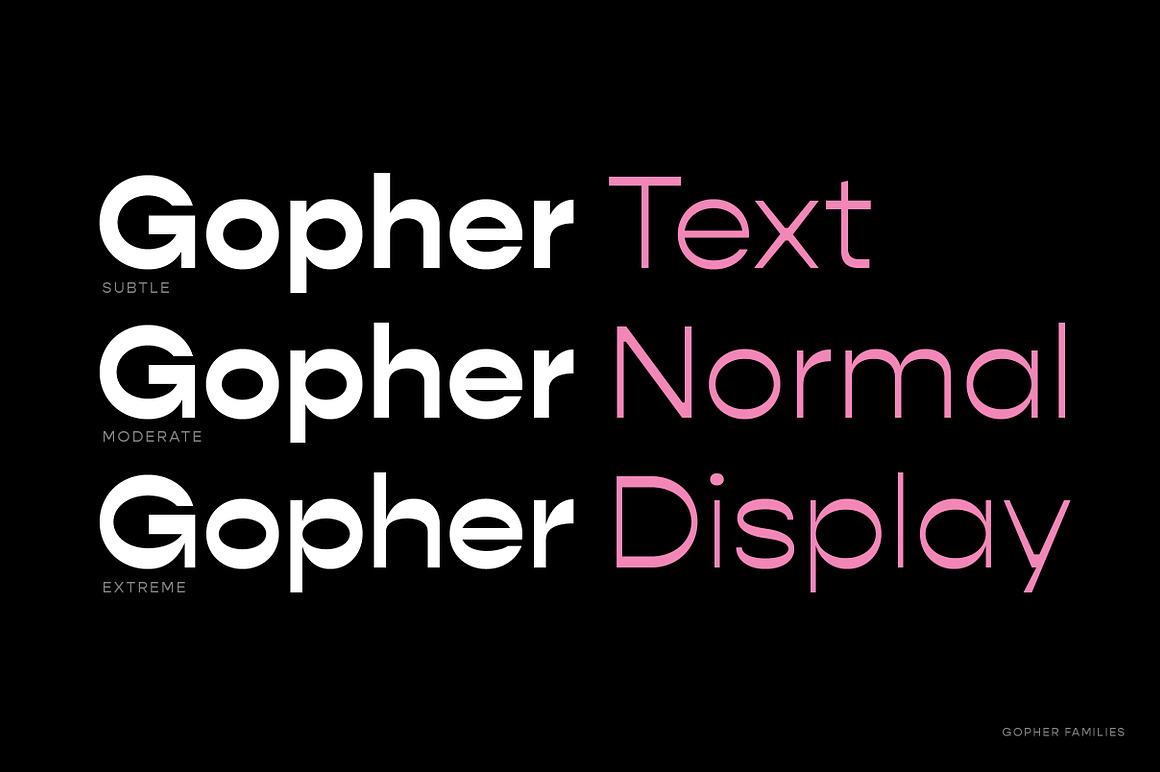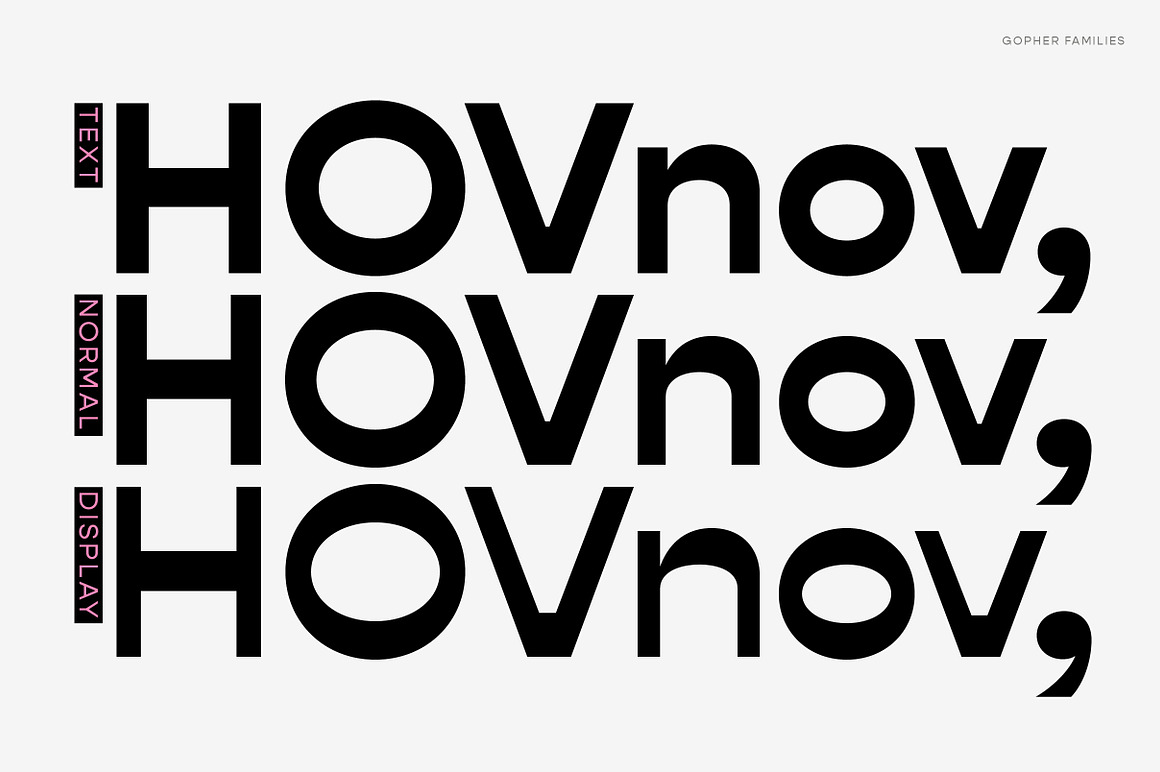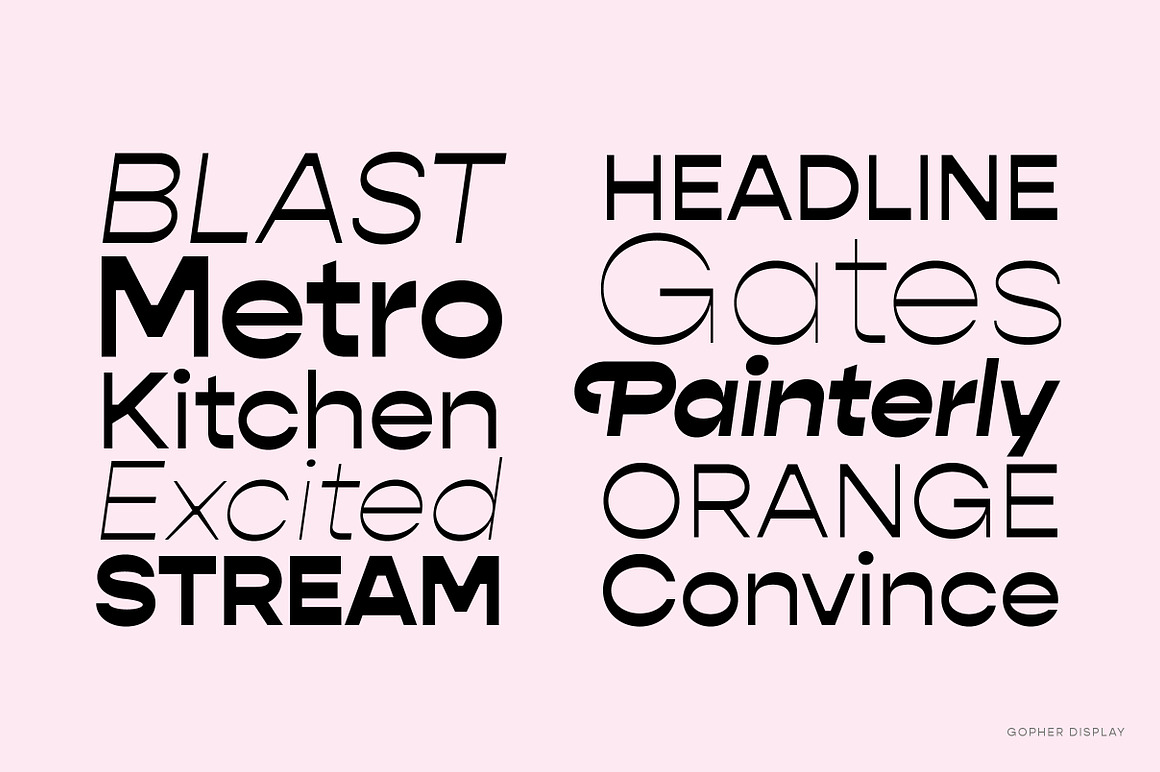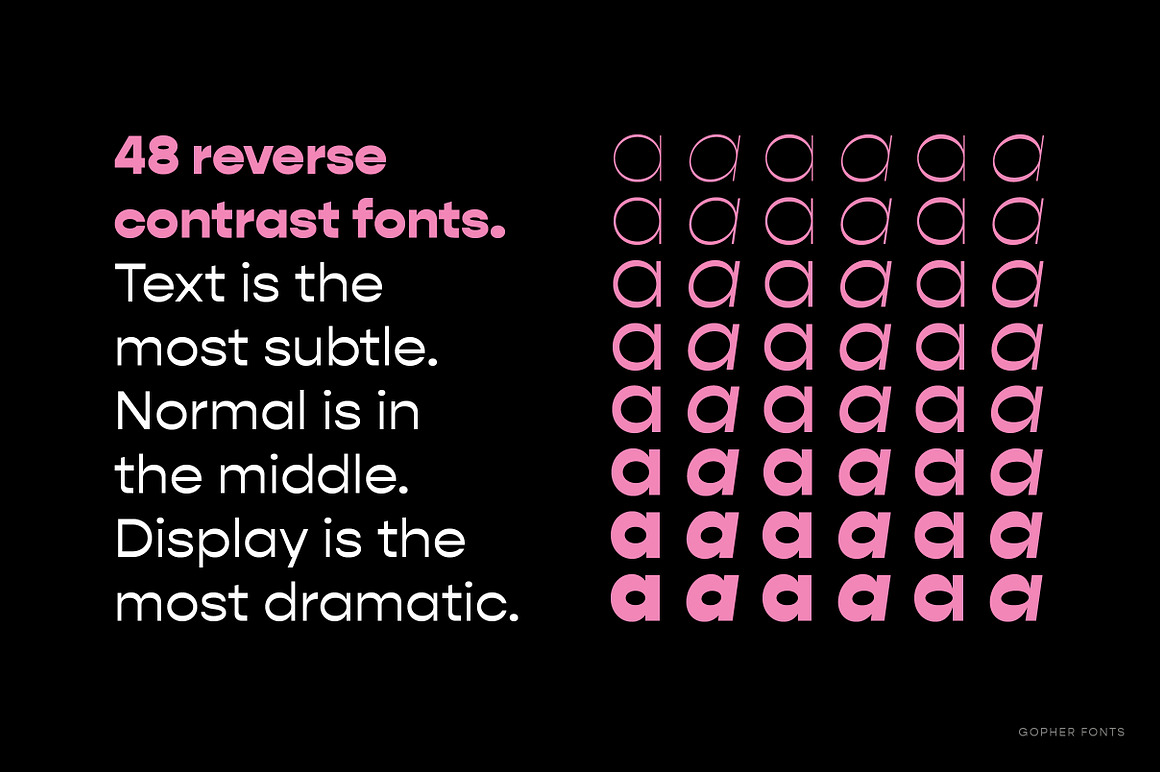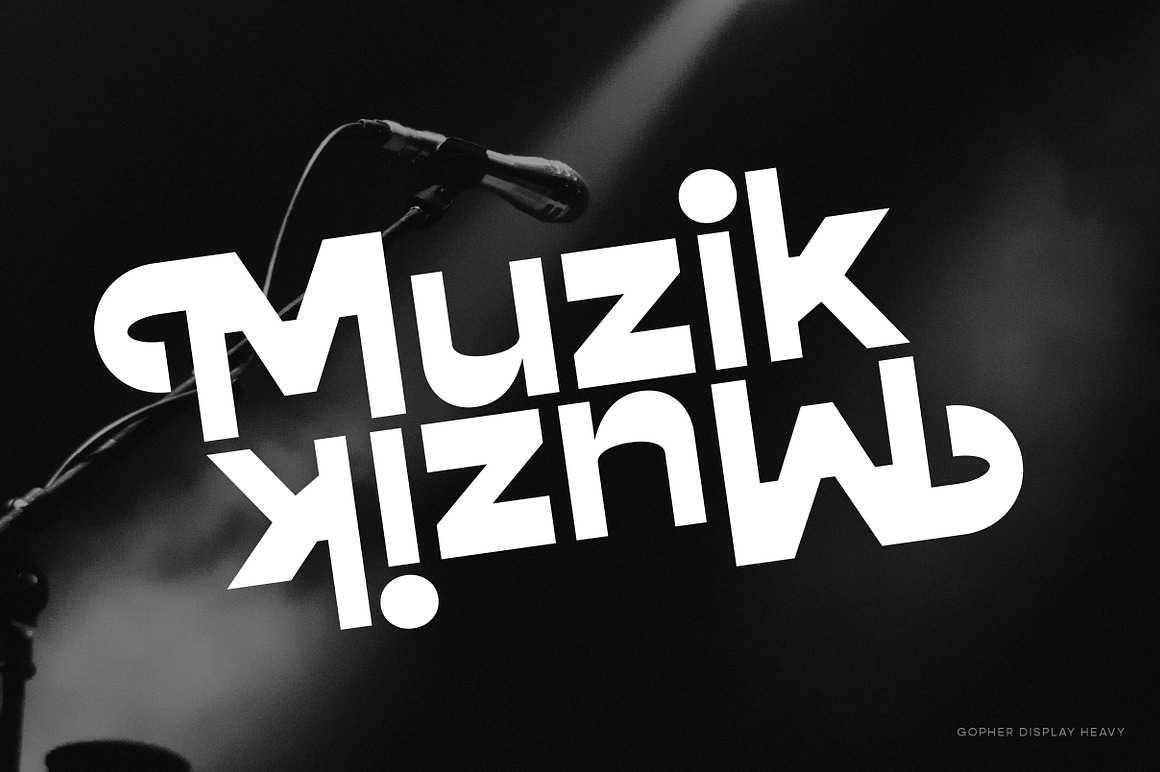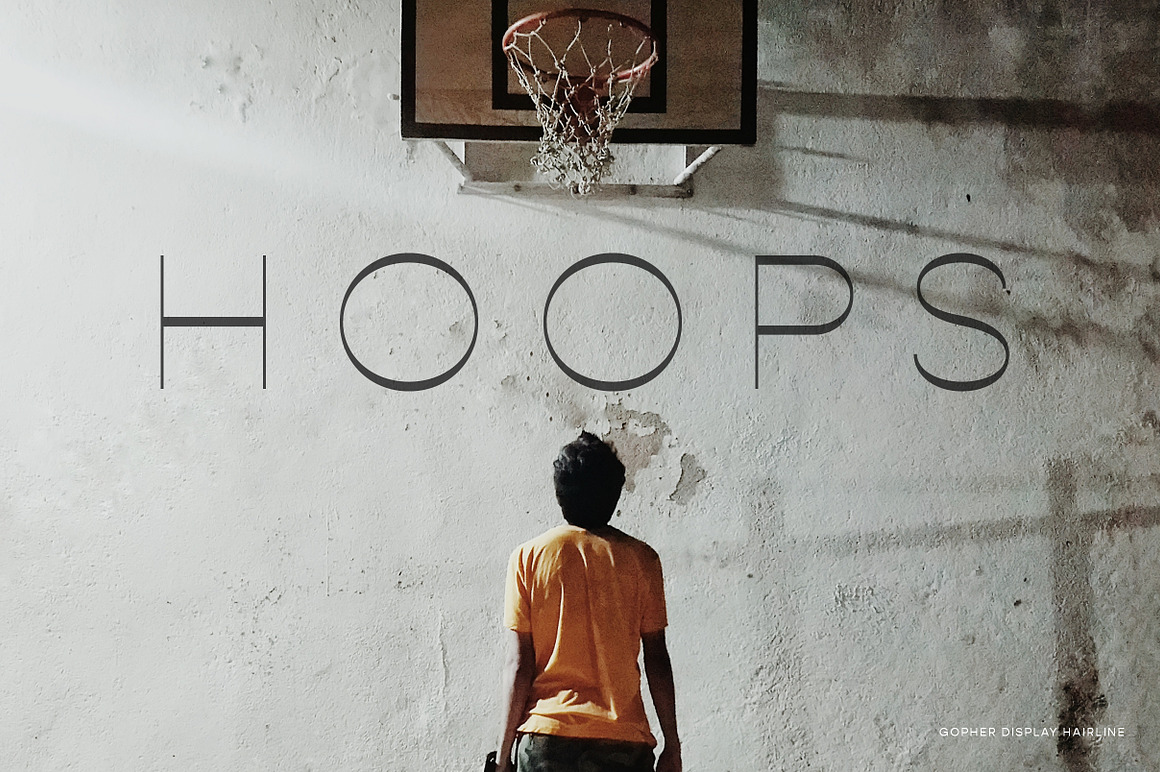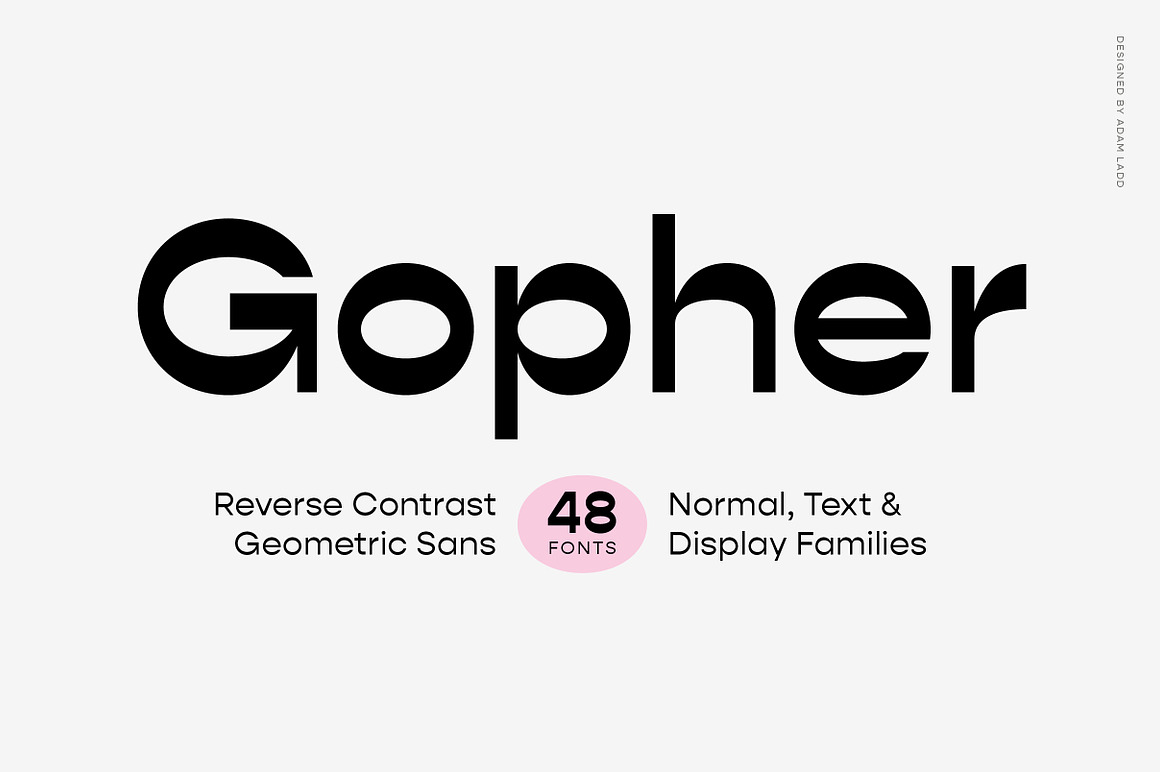
Gopher Complete Font Family
This Gopher Complete Font Family is perfect for comprehensive brand systems, multi-platform digital interfaces, extensive publishing projects, corporate identity programs, large-scale website designs, complete branding solutions, versatile marketing campaigns, systematic design frameworks, flexible business communications, and scalable typography systems.
What makes this Gopher Complete Font Family exciting is its comprehensive versatility that provides complete typographic solutions for complex design challenges. The font family features extensive weight variations, multiple styles, and systematic consistency that creates unified brand experiences across all touchpoints. Its complete character and systematic flexibility make it ideal for organizations needing comprehensive typography that maintains consistency while offering maximum creative possibilities.
The Gopher Complete Font Family includes thin through black weights with matching italics, condensed variants, and extended character sets. This comprehensive systematic font family provides designers with complete typographic control to create cohesive brand hierarchies while maintaining the versatile character essential for multi-platform communications and complex design systems.
Design agencies and enterprise brands consistently choose Gopher Complete Font Family Free Download for projects requiring comprehensive typographic solutions and systematic brand consistency. This font family's distinctive complete character perfectly captures the need for versatile, reliable typography that works seamlessly across diverse applications while maintaining unified brand identity.
The systematic construction of Gopher Complete Font Family showcases carefully engineered letterforms with consistent proportions across all weights and styles. Its comprehensive design ensures optimal performance across every application, from detailed mobile interfaces to large-scale environmental graphics requiring complete typographic flexibility and systematic reliability.
Professional designers appreciate how Gopher Complete Font Family delivers comprehensive typography solutions with systematic consistency. The font family's complete nature allows organizations to establish unified brand languages while maintaining the flexibility necessary for effective communication across diverse platforms and complex design requirements.
The versatile applications of Gopher Complete Font Family extend across all contexts where comprehensive typography and systematic consistency are essential. Its complete character makes it particularly effective for enterprise businesses, digital platforms, and publishing companies that require reliable, scalable typography systems for complex multi-platform communications.
Whether developing complete brand identity systems or creating comprehensive digital platforms, Gopher Complete Font Family Free Download provides the systematic typographic foundation that enterprise brands need to communicate their professional excellence, systematic reliability, and the comprehensive quality that defines complete brand solutions and scalable design systems.